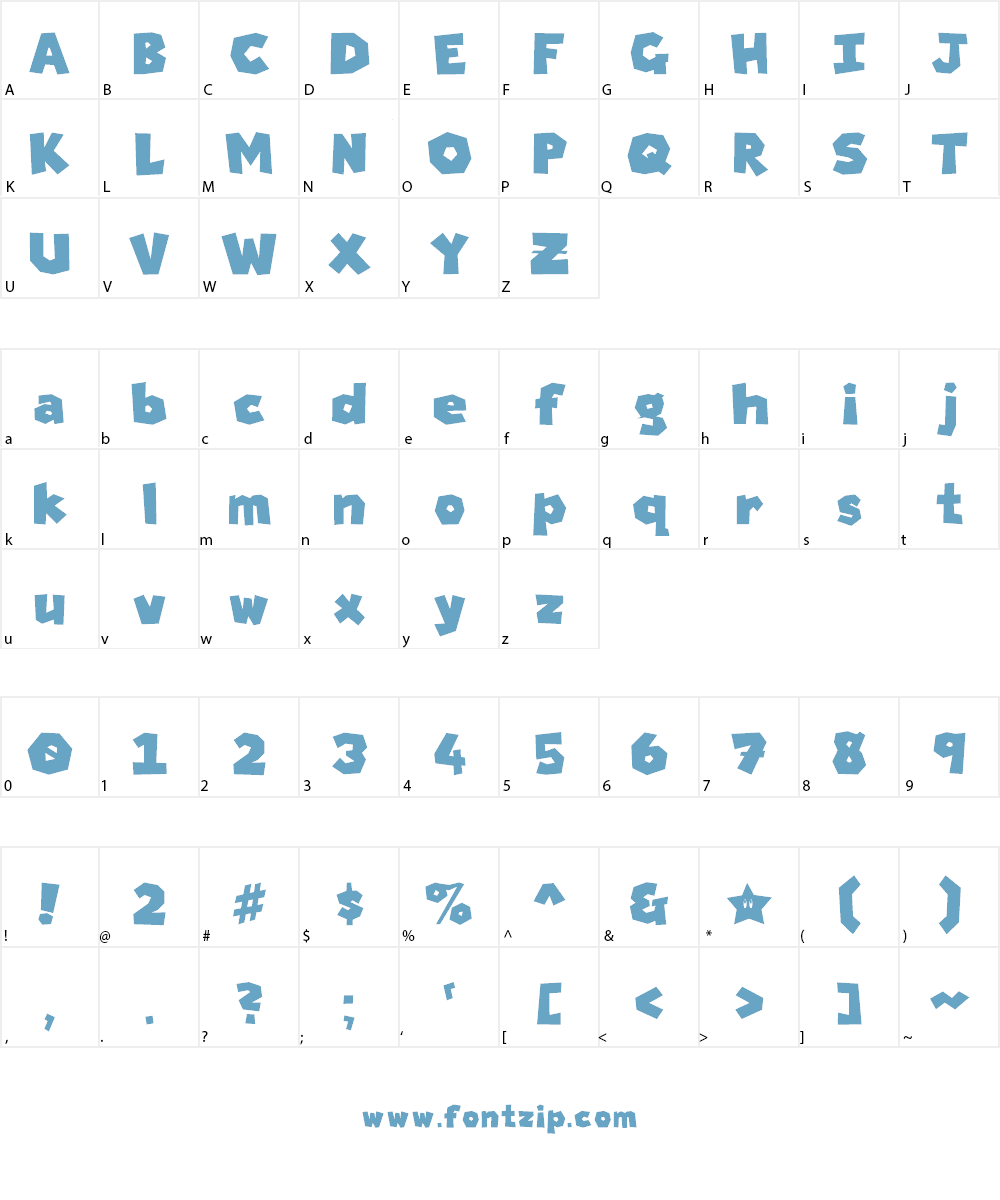
This is another font I made back in 2015. It looks a lot like a Mario font, but it's a lot more different than you think. You can use the asterisk (*) to make a starman, as in Super Mario Bros. And, if you're using a Mac, when you press OPTION SHIFT K (Apple logo, U F8FF), you get a speech bubble with "XEN!" written on it. You can even use it for a custom Mario Party font, or for your Mario fan games.